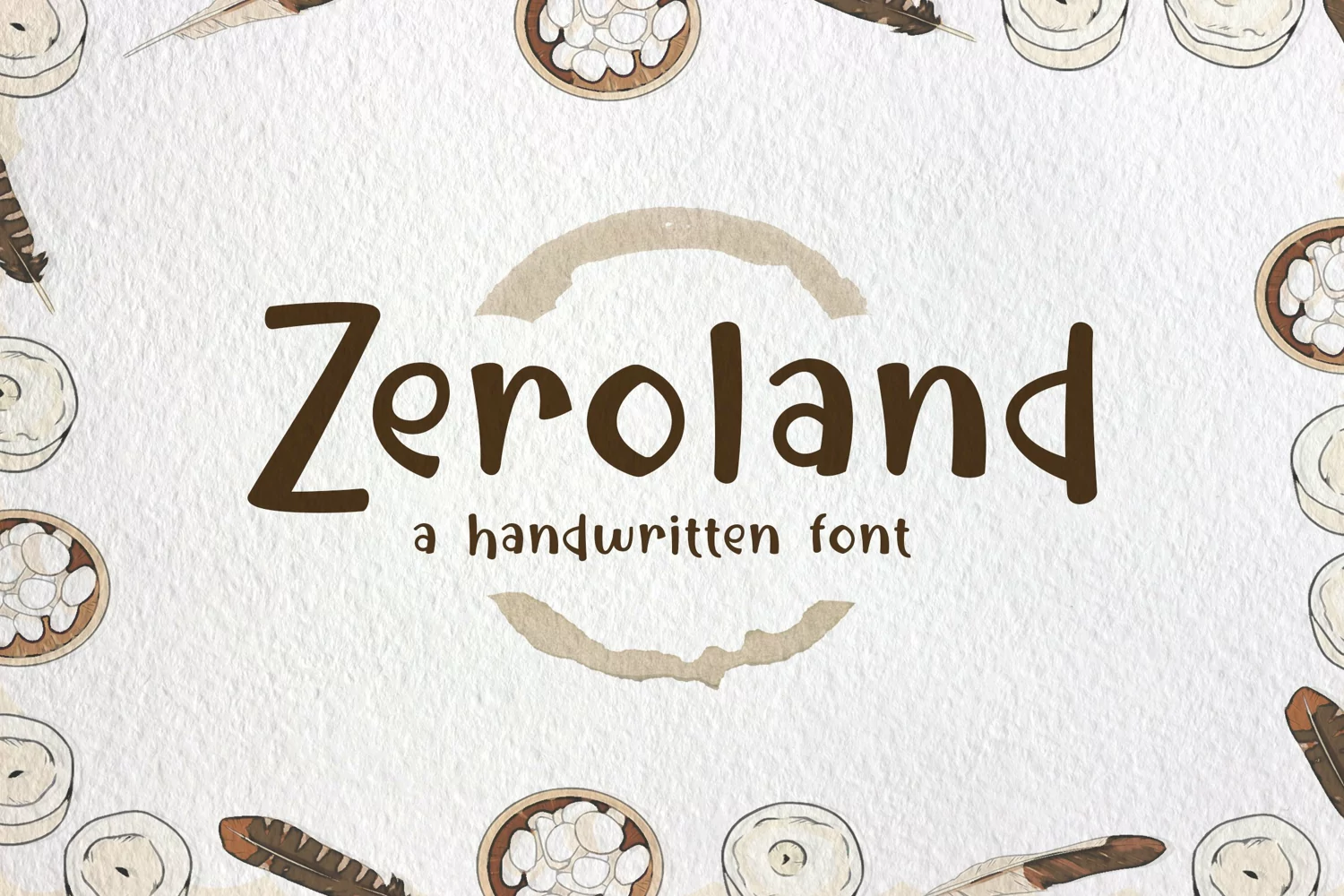
Zerolnd is a display typeface. Perfect for display, quotes, print, t-shirt, header, tittle, logo, logotype, branding, business card, crafting needs, branding, and many more.